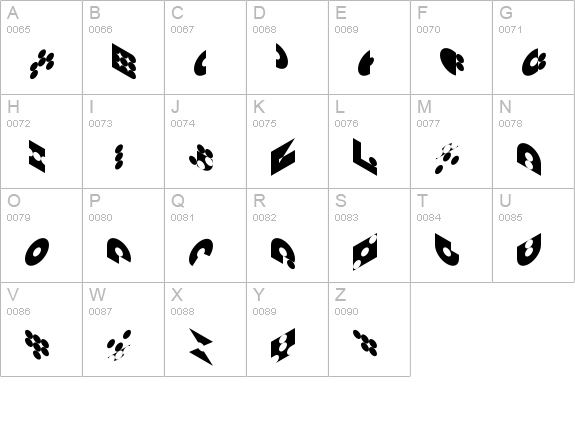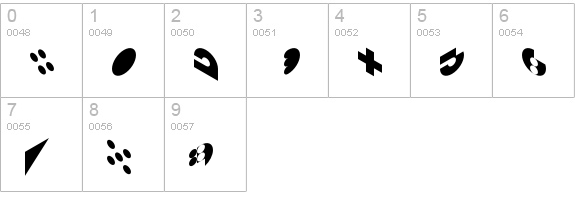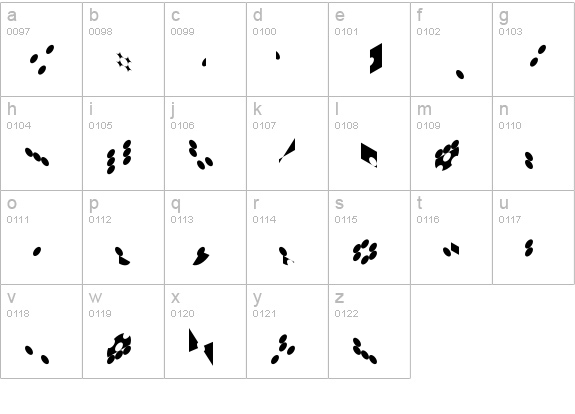
Virtual Font Details
The Virtual font is a stunning display typeface that seamlessly blends modern and futuristic elements, creating a truly unique and eye-catching design. This font is perfect for any project that requires a touch of sophistication and innovation. From logos and branding materials to website headers and social media graphics, Virtual is sure to make a lasting impression. One of the best things about the Virtual font is that it is absolutely free to download at FontsMarket.com. This means that you can easily access this incredible font without having to spend a dime. Whether you are a professional designer looking to add a new font to your collection, or a creative individual in need of a stylish typeface for a personal project, Virtual is the perfect choice. With its sleek and futuristic letterforms, Virtual is versatile enough to be used in a wide range of design applications. Its clean lines and geometric shapes give it a contemporary and cutting-edge look, while still maintaining a sense of elegance and sophistication. This font is designed to captivate and inspire, making it an excellent choice for advertisements, posters, and magazine layouts. The Virtual font also boasts a wide range of weights and styles, allowing you to experiment and find the perfect fit for your specific design needs. Whether you prefer a bold and impactful look or a more subtle and minimalist aesthetic, Virtual has you covered. The variety of options available with this font ensures that you can create visually stunning and cohesive designs that truly stand out from the crowd. In conclusion, the Virtual font is a must-have for any designer or creative individual who is looking to elevate their projects to new heights. And with its availability as a free download at FontsMarket.com, there is no reason not to add this incredible font to your collection today. So go ahead, unleash your creativity and let Virtual transform your designs into something truly extraordinary.